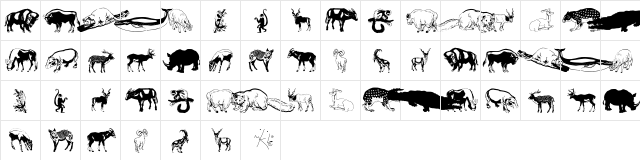
WildAnimalsOne Regular Font Preview
WildAnimalsOne Regular
Design Context for WildAnimalsOne Typeface
WildAnimalsOne is a composed and adaptable typeface that performs quietly and consistently across a wide range of design contexts.